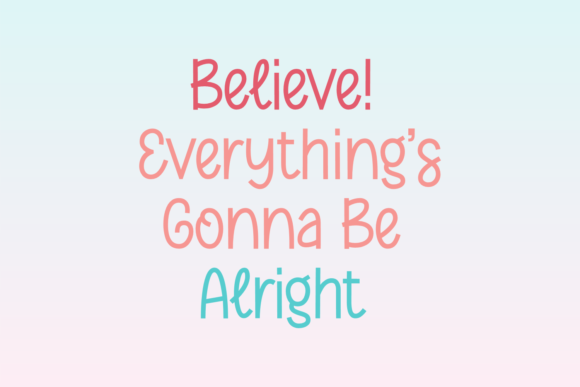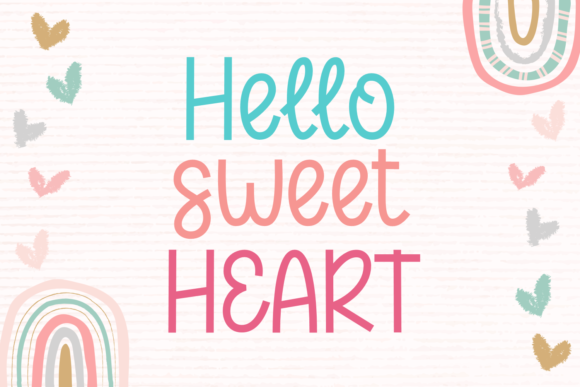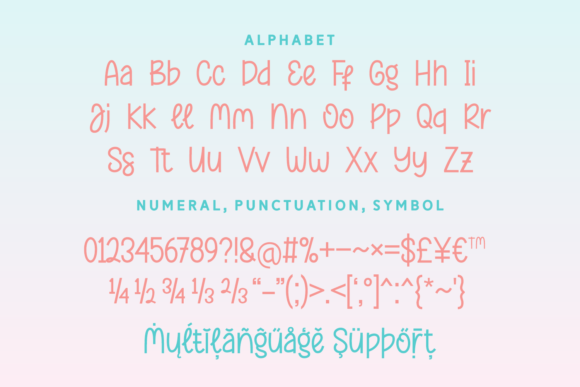
The Joy of Cute Little Girl Font: A Designer’s New Best Friend
I still remember the time I was working on a project for a client’s daughter’s birthday party, and I just couldn’t find the right font to match the playful and whimsical theme. The client wanted something that would make the party invitations look like they were written in the birthday girl’s own handwriting. After hours of searching through font libraries and marketplaces, I stumbled upon the Cute Little Girl Font. It was love at first sight! ✨
An Honest Review of Cute Little Girl Font
- ✨ The font’s simple, handwritten style is incredibly versatile and perfect for a wide range of projects, from party invitations to branding and packaging.
- 🎉 The bouncy accents and playful flair add a touch of whimsy and fun to any design.
While Cute Little Girl Font is an amazing addition to any design project, there are a few things to keep in mind: 🤔
- ⚠️ The font may not be suitable for very formal or professional projects, as its playful nature may not fit the tone.
- ⚠️ Some users have reported issues with kerning and spacing, particularly when using the font at smaller sizes.
A Practical Guide to Using Cute Little Girl Font
- Experiment with OpenType features and glyphs to add more personality to your design.
- Take advantage of stylistic alternates and glyphs to add more variety to your design.
The Story Behind Cute Little Girl Font
Cute Little Girl Font was designed by a talented font creator who wanted to capture the playful, whimsical spirit of childhood. The font’s simple, handwritten style is inspired by the way kids write and draw, making it perfect for projects that require a personal, handmade touch.